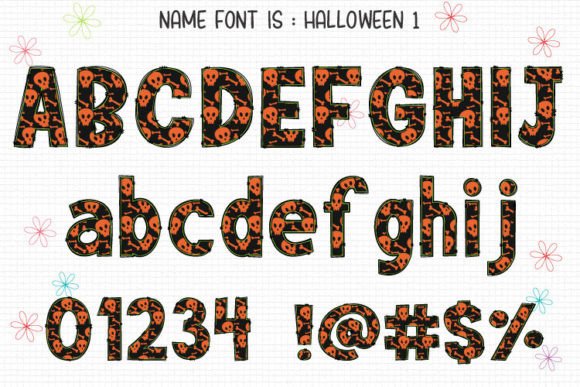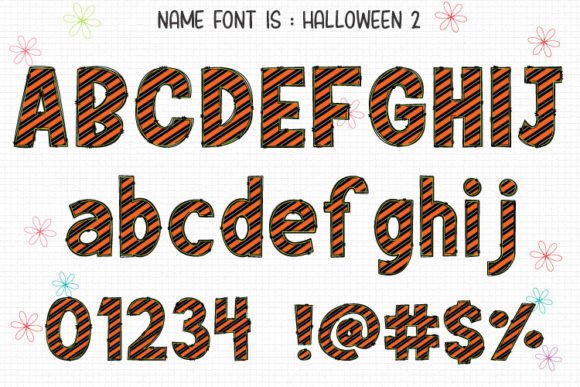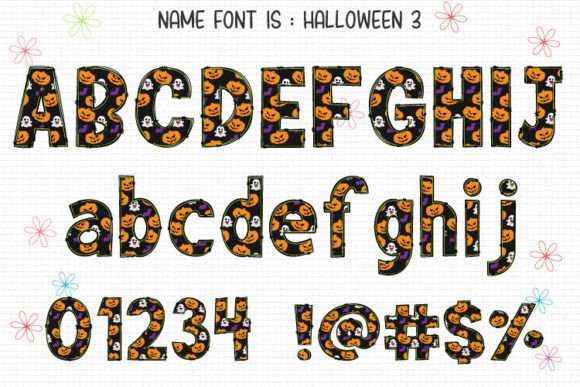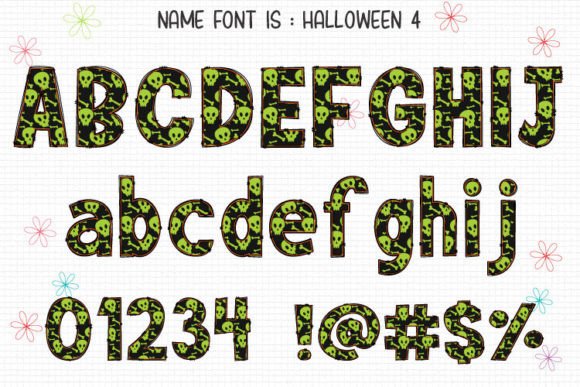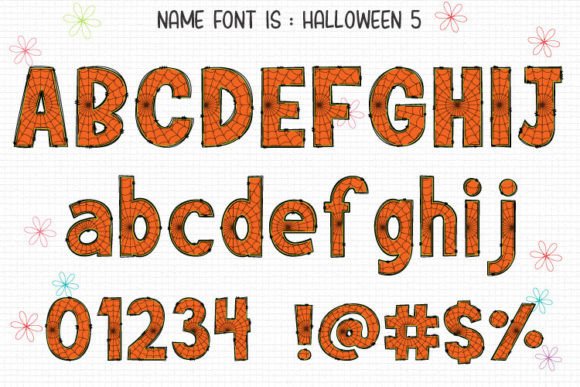
Halloween Font: Add a Spooky Touch to Your Designs
Are you looking for a font that captures the essence of Halloween? Look no further than the Halloween Font, a cute and fun Halloween-styled detailed colored font that’s perfect for a variety of design projects. In this article, we’ll explore the features of this font, its compatibility with different design programs, and provide tips on how to use it to create spooky and fun designs.
What is Halloween Font?
Halloween Font is a unique and creative font that’s specifically designed for Halloween-related projects. It’s a detailed colored font that features intricate designs and patterns, making it perfect for creating eye-catching posters, flyers, school designs, book and movie covers, and more.
Features of Halloween Font
- Cute and fun design: The Halloween Font features a cute and fun design that’s perfect for creating Halloween-themed designs that are both spooky and fun.
- Detailed colored font: The font is a detailed colored font, which means it features intricate designs and patterns that will make your designs stand out.
- Use it for Halloween-themed designs: The Halloween Font is perfect for creating Halloween-themed designs, such as posters, flyers, and social media graphics.
- Experiment with different colors: The color version of the font features multiple colors, so experiment with different colors to create unique and eye-catching designs.
- Use it with other design elements: The Halloween Font can be used with other design elements, such as images, shapes, and textures, to create complex and interesting designs.
The Halloween Font is a unique and creative font that’s perfect for adding a spooky touch to your designs. With its cute and fun design, detailed colored font, and compatibility with a range of design programs, it’s perfect for designers, crafters, and DIY enthusiasts. Whether you’re creating Halloween-themed designs, posters, flyers, or social media graphics, the Halloween Font is a great choice.